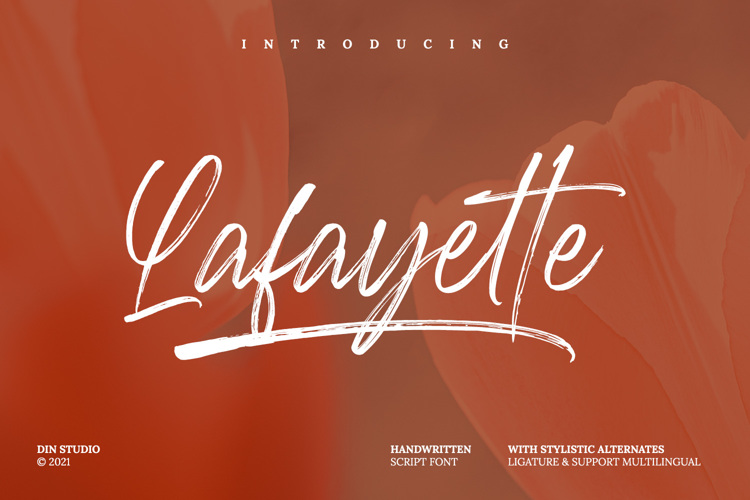
Lafayette Font
Lafayette, specifically designed in a swash package, is a handwritten font with a little brush style to create a visually modern display to add beauty and style to your designs. Lafayette fits best for various designs, such as posters, banners, logos, book covers, headings, printed products, merchandise, social media, and more.
Features include:
• Ligatures
• Stylistic Sets
• Multilingual Supports
• Numerals and Punctuations